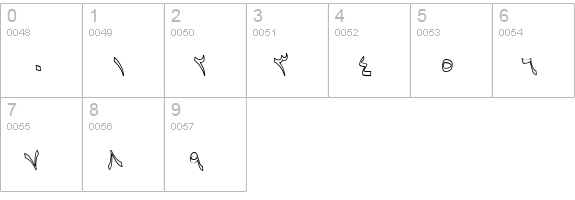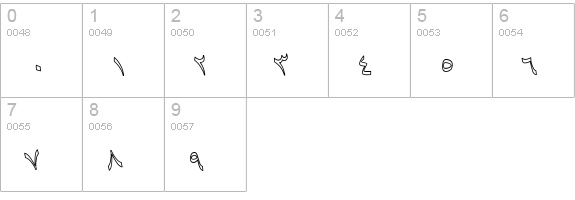
B Baran Outline Italic Font Details
B Baran Outline Italic is a distinctive, italic variant in the B typeface family \xE2\x80\x94 well suited to design and typography projects.
B Baran Outline Italic is a sleek and modern font that effortlessly combines elegance and sophistication. Its unique italicized outline adds a touch of creativity and flair to any design project. This versatile font is perfect for branding, headlines, packaging, and more. The best part is that this font is available for free download at FontsMarket.com. By downloading B Baran Outline Italic, you are adding a stylish and eye-catching font to your collection without having to spend a penny. Don't miss out on the opportunity to enhance your designs with this beautiful and freely accessible font!